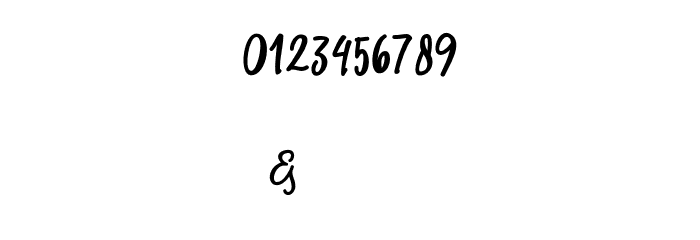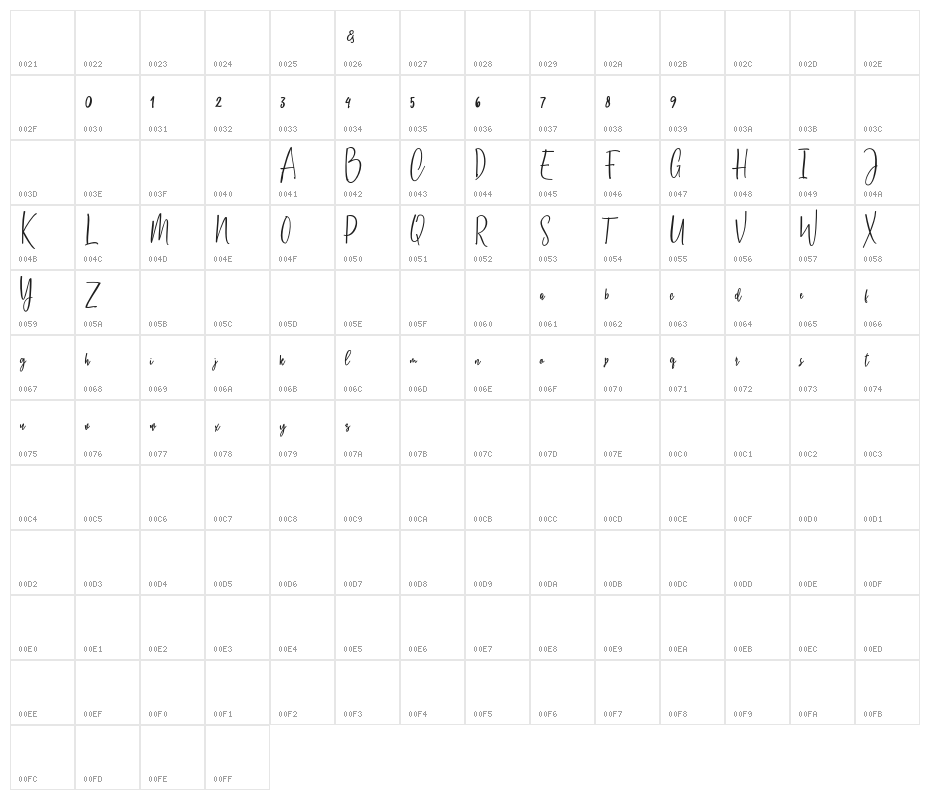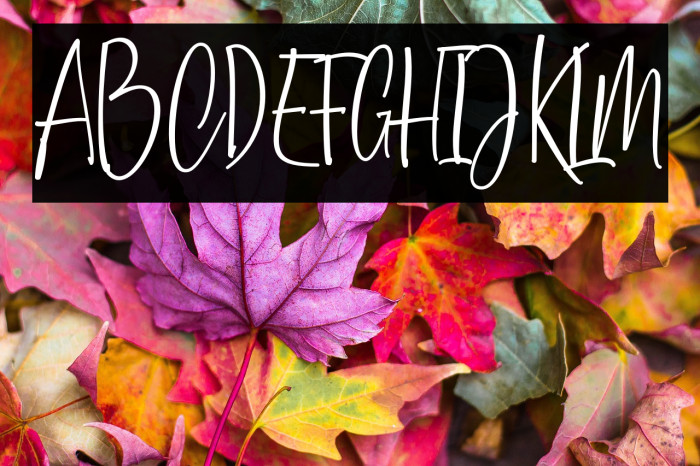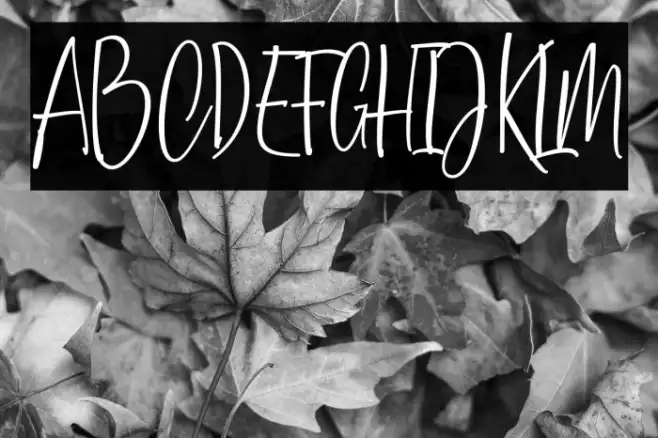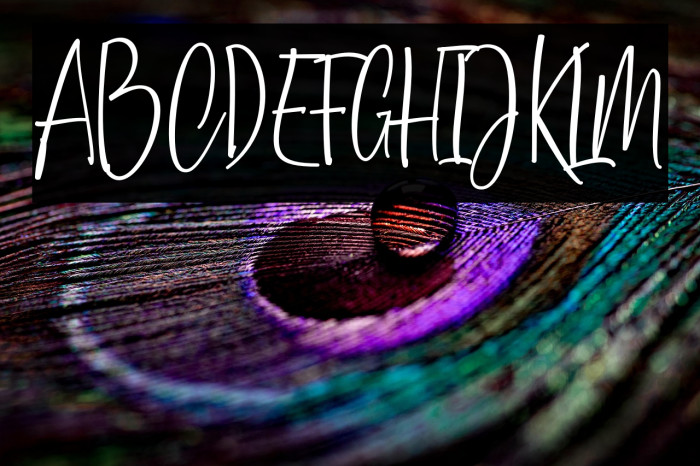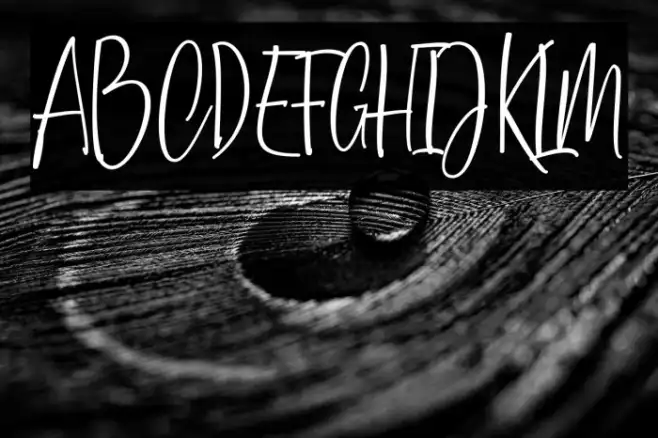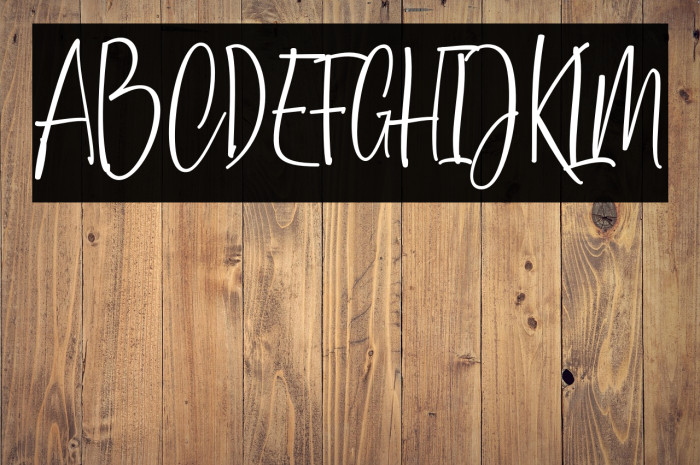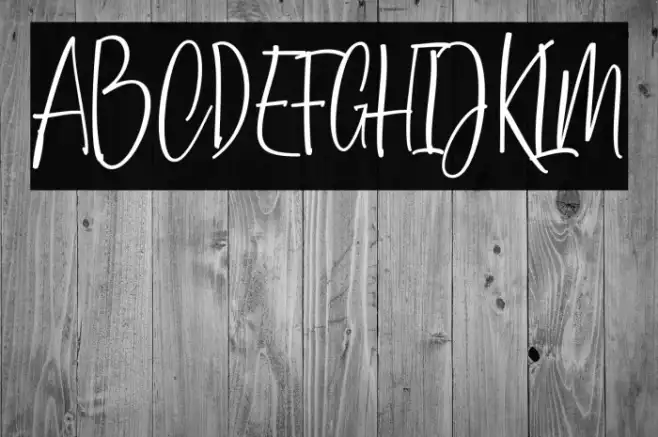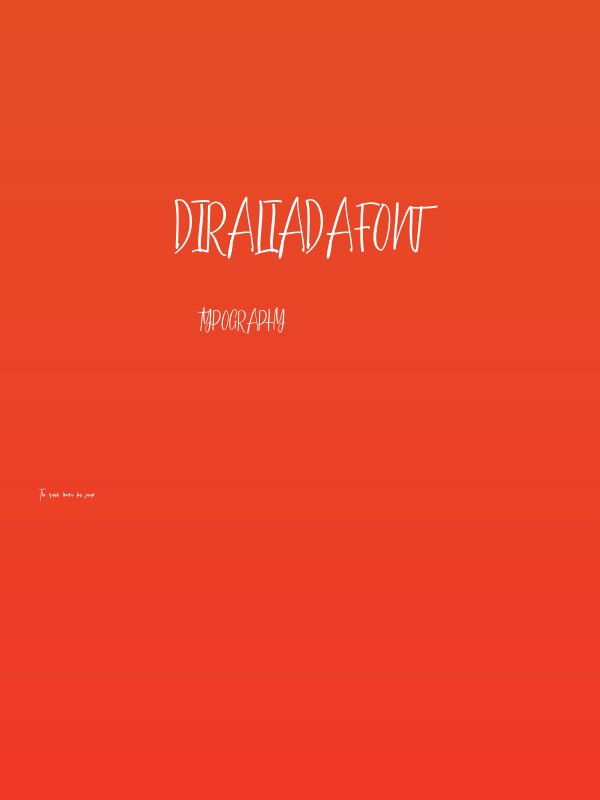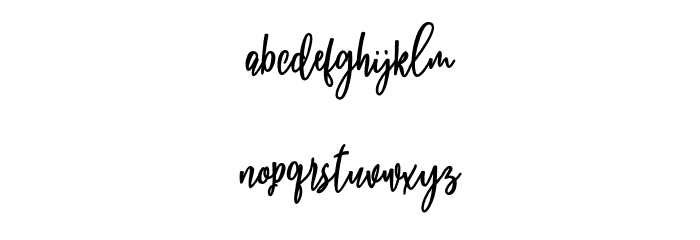
diraliaDafont Font
diraliaDafont Description
This font features a playful and artistic handwritten style, characterized by its tall, narrow uppercase letters and more fluid, connected lowercase letters. The uppercase letters have a whimsical, elongated form with varying stroke widths, giving them a dynamic and lively appearance. The lowercase letters are more rounded and smooth, maintaining a consistent flow that enhances readability. The numerals are bold and slightly condensed, matching the overall playful aesthetic. Special characters like the ampersand are creatively designed, adding to the font's unique charm.
| Proposed Projects | Ideal for creative projects such as greeting cards, invitations, logos, and branding materials that require a personal touch. |